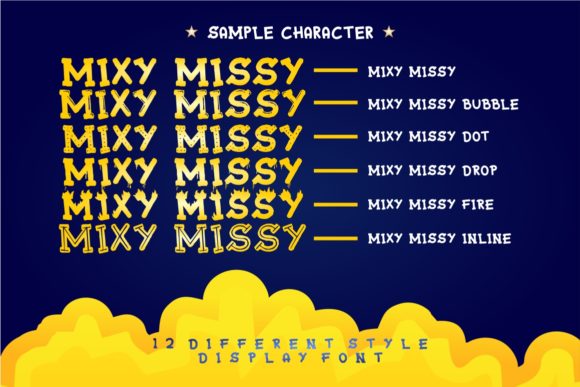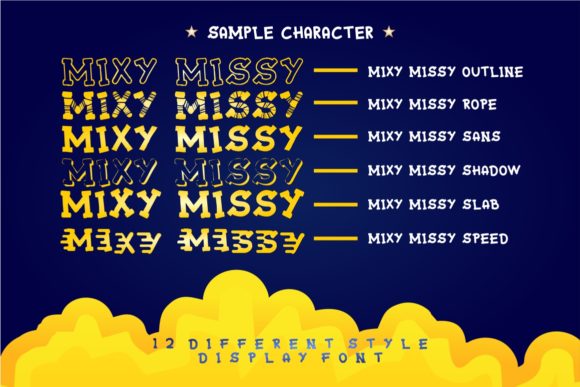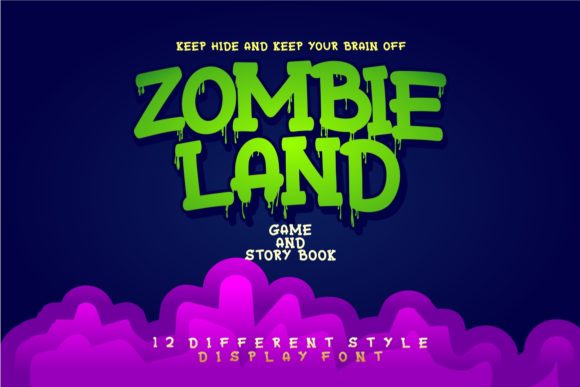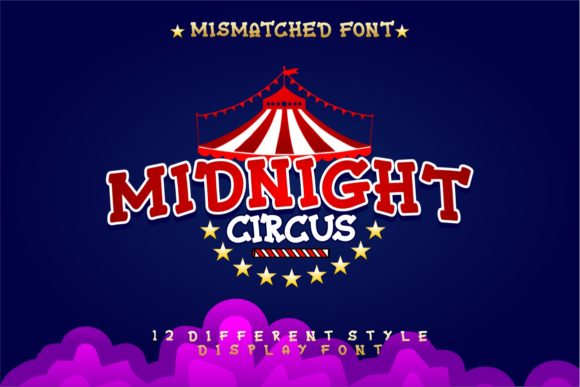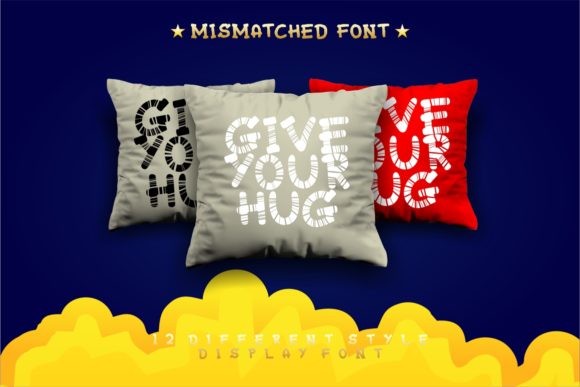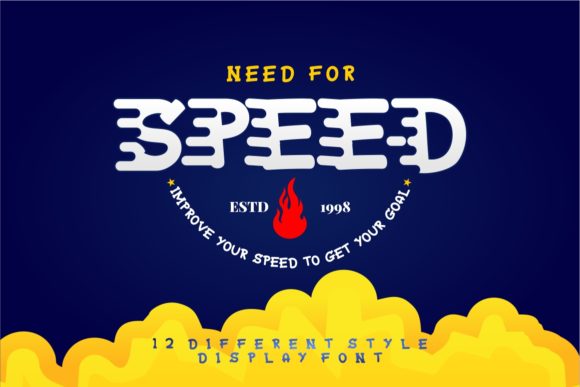
Introduction to Mixy Missy Font Font
Fonts play a crucial role in design, and the Mixy Missy Font font is a typeface that brings both character and versatility to any project. Whether you’re working on a branding project, a website, or a print design, the Mixy Missy Font font offers a unique style that can elevate your work.
Mixy Missy is an incredible font family, that brings together 12 unique styles.
Fall in love with its versatile charm, and add a playful vibe to any design project .
Key Features of Mixy Missy Font Font
Why Choose Mixy Missy Font Font?
The Mixy Missy Font font is more than just a typeface – it’s a design tool that helps you communicate your message with style and clarity. Its unique character set and versatile design make it suitable for a wide range of applications, from elegant invitations to bold headlines.
With its carefully crafted letterforms and balanced proportions, the Mixy Missy Font font ensures readability and visual appeal across all mediums.
What makes Mixy Missy Font font special?
The Mixy Missy Font font stands out with its unique design, exceptional readability, and versatility across various design applications.